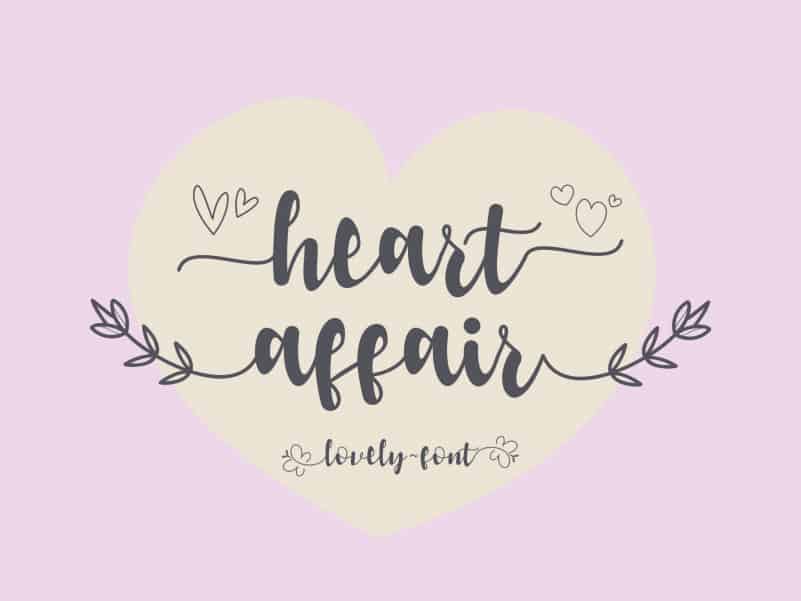
Heart Affair Font
Heart Affair Font is a graceful and romantic script font, featuring sweet and subtle strokes accompanied by a lovely heart ornament. Heart Affair Font original look will attract a variety of crafty ideas, from letterheads and headings, to stationery.